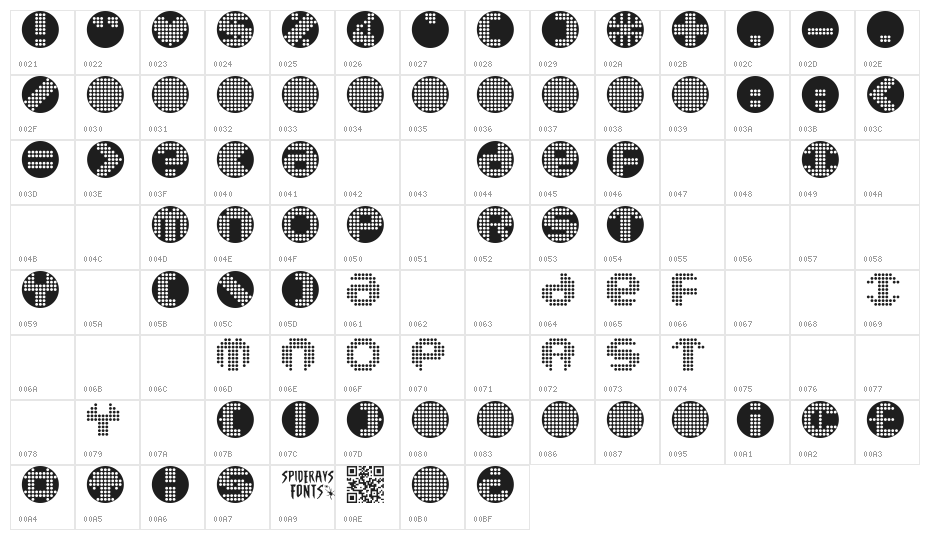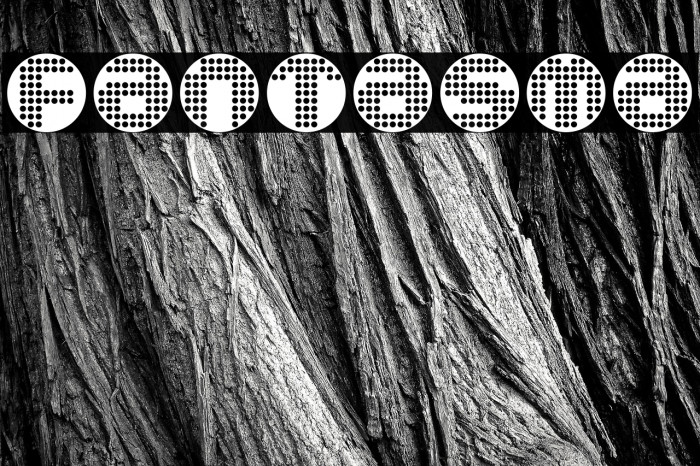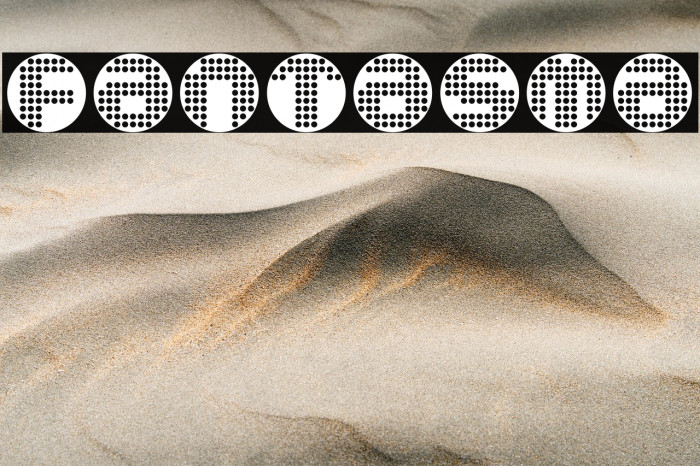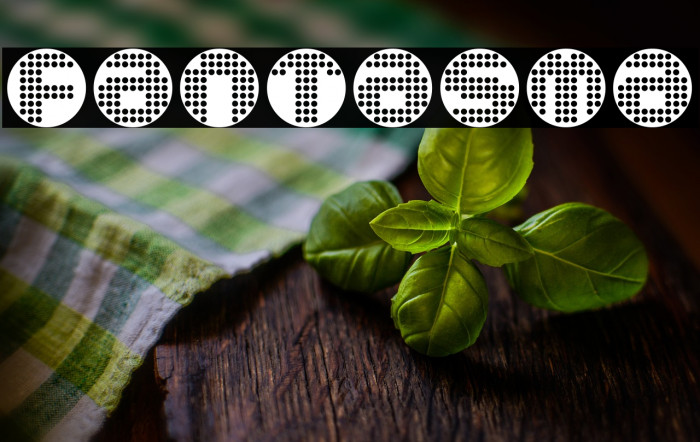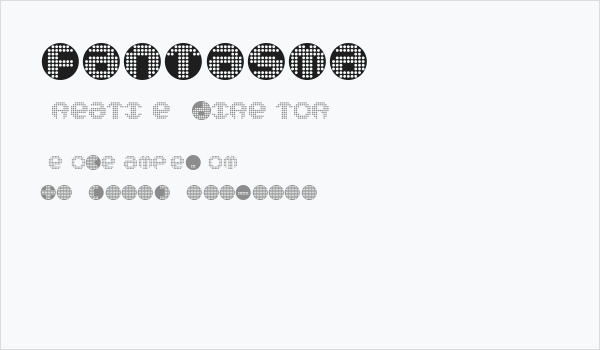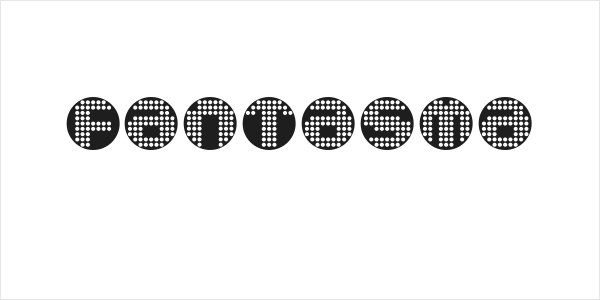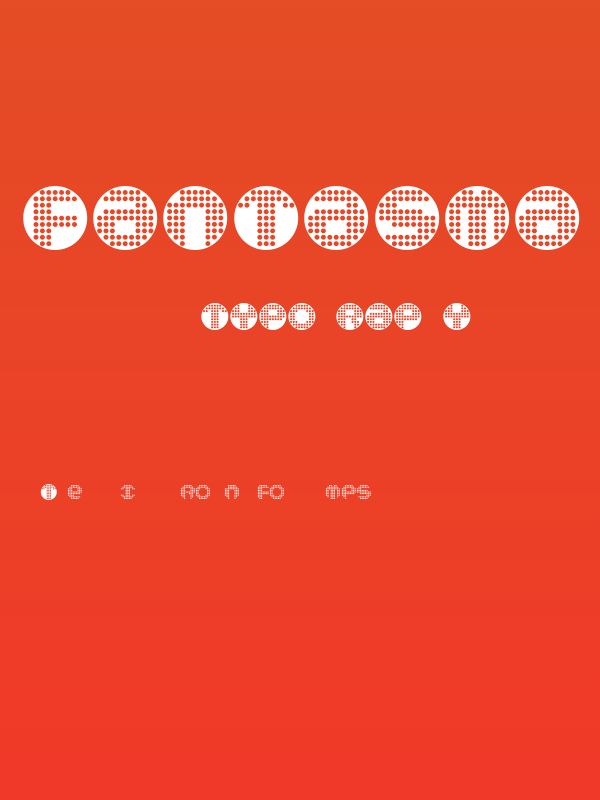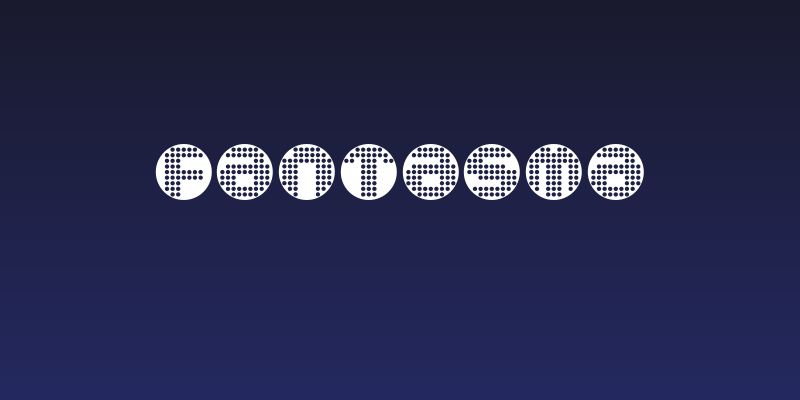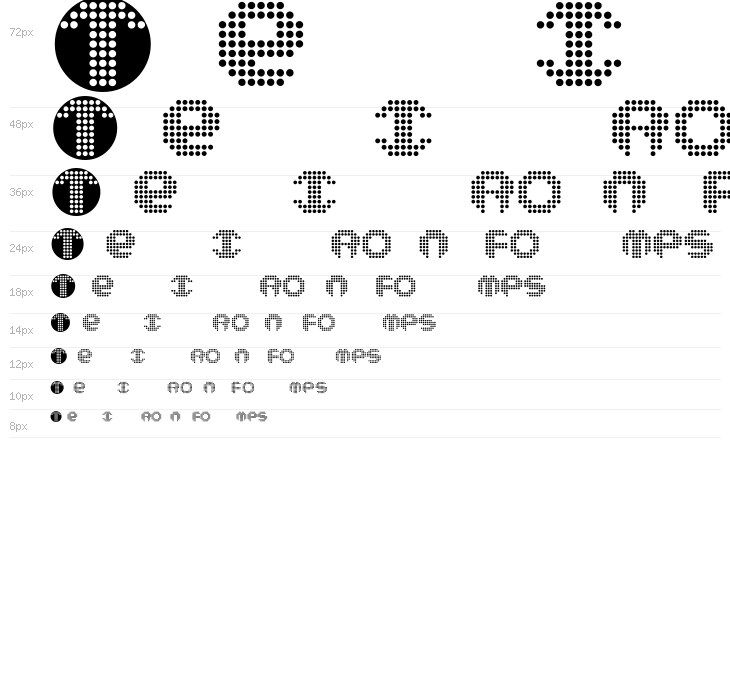
FANTASMA Font
FANTASMA Description
This font features a unique dot matrix style, where each character is composed of a grid of evenly spaced dots. The design gives a digital or retro feel, reminiscent of old LED displays or dot matrix printers. The characters are enclosed within circular boundaries, enhancing the futuristic and decorative appearance. This style is consistent across both uppercase and lowercase letters, as well as numbers and special characters. The uniformity in dot size and spacing creates a cohesive look, while the circular enclosures add a playful yet structured element to the overall design.
| Use Case | Logos, Posters, Digital Art |
| Proposed Projects | Ideal for digital-themed projects, retro designs, tech-related branding, or any creative work that requires a futuristic or playful touch. |